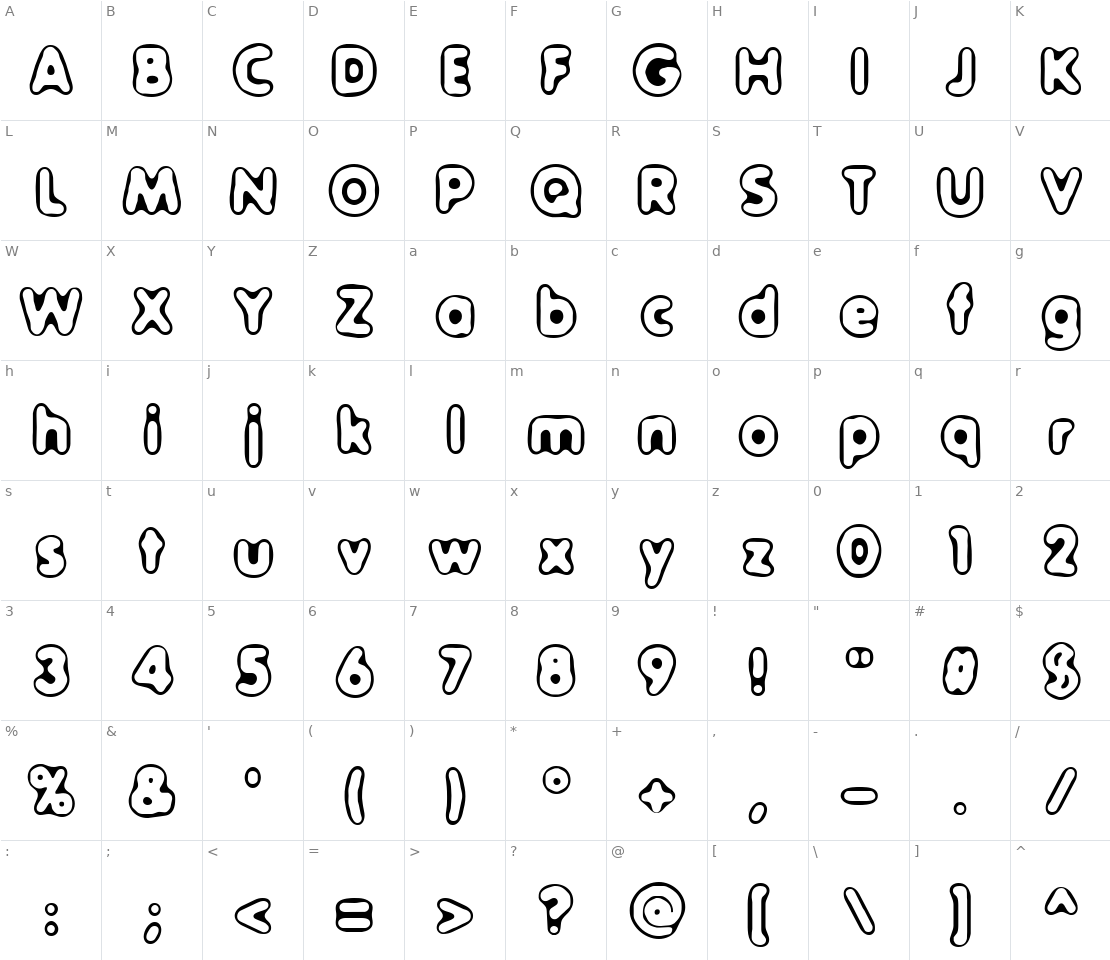
Outer Sider
Outer Sider is a rounded, bubbly outline typeface from Ænigma Fonts with bold, cartoon-style letterforms that feel like they belong on a Saturday morning title card. The outlined strokes and inflated shapes keep things light and playful, making it a natural pick for children's projects, comics, and headlines where fun comes first.